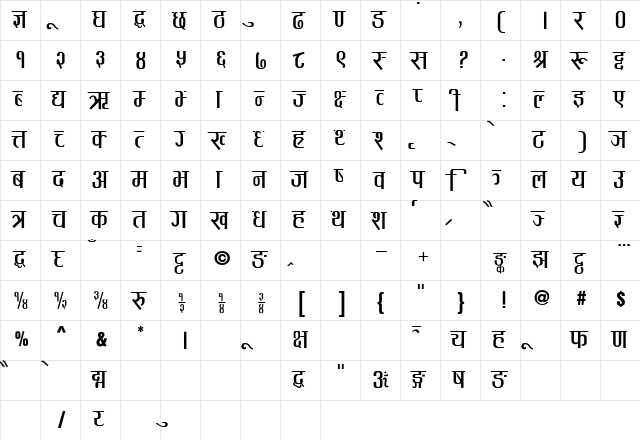
Priyatam Regular
Design Context for Priyatam Typeface
Priyatam offers clean, dependable letterforms without strong stylistic allegiance, making it a practical choice for designers who need flexibility.